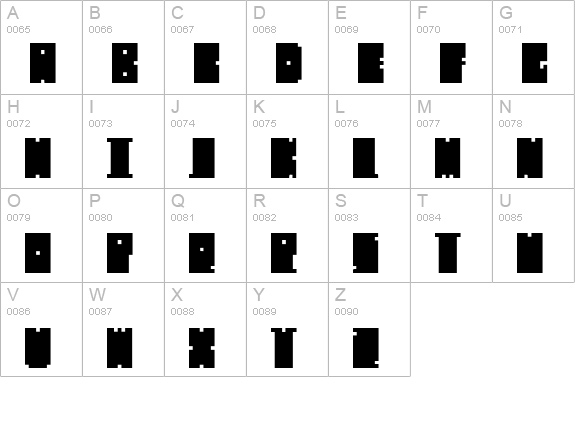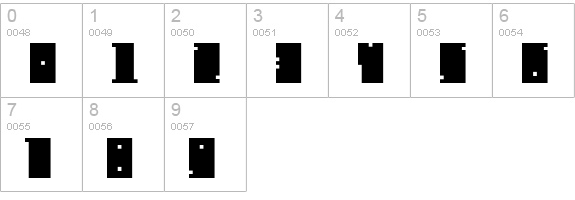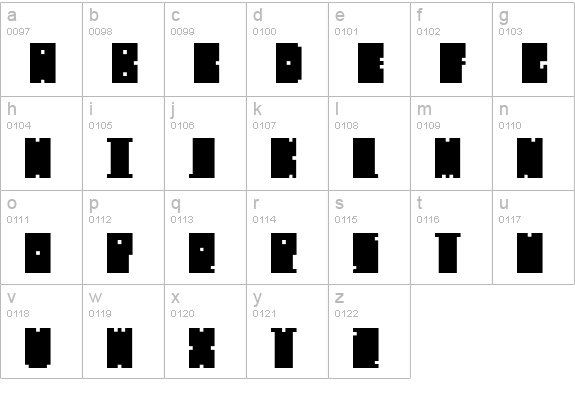
Mischstab Decibel Repulse Font Details
Mischstab Decibel Repulse is a striking and modern font that is sure to make your designs stand out. With its bold and edgy appearance, this font exudes a sense of energy and power. Each letter is meticulously crafted with sharp angles and precise lines, giving it a unique and dynamic look. This font is perfect for projects that require a strong and impactful typographic style, such as posters, logos, and branding materials. Whether you're looking to make a statement or simply add a touch of modern flair to your designs, Mischstab Decibel Repulse is the perfect choice. And the best part? This font is completely free to download at FontsMarket.com. So go ahead and give your designs a bold new look with Mischstab Decibel Repulse today!